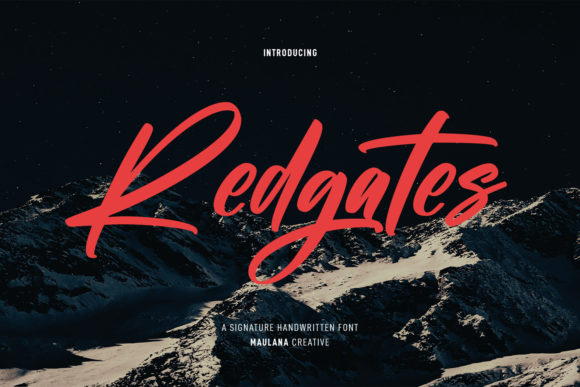
Step into a world of captivating typography with Redgates Font, a masterful script font that beautifully captures the essence of wartime posters. Designed by the talented Maulana Creative, Redgates is not just a font; it's an artistic expression of boldness, resilience, and the triumph of the human spirit amidst adversity.
Immerse yourself in the striking contrast of its bold strokes and playful characters, each letter a testament to the unwavering determination of those who fought for freedom. The carefully crafted ligatures and alternates add a touch of elegance to your designs, allowing you to create captivating visuals that resonate with your audience.
Picture the Redgates Font gracing your product packaging, adding a touch of wartime charm to your brand. Let its bold lines command attention on magazine covers, social media posts, and wedding invitations. It's the perfect font to express resilience and unity during difficult times, reminding us of the strength we find in each other.
With Redgates Font, your words will stand out, not just as mere text, but as powerful statements that evoke emotions and inspire action. It's a font that speaks to the heart, leaving an unforgettable impression on anyone who encounters it.